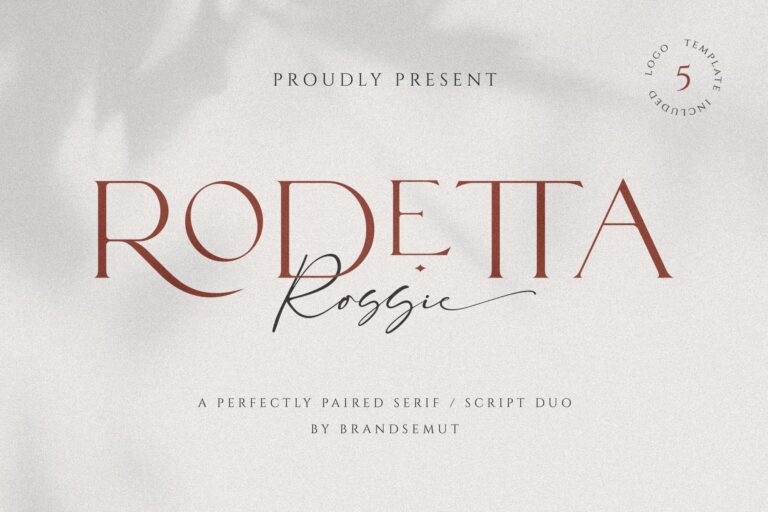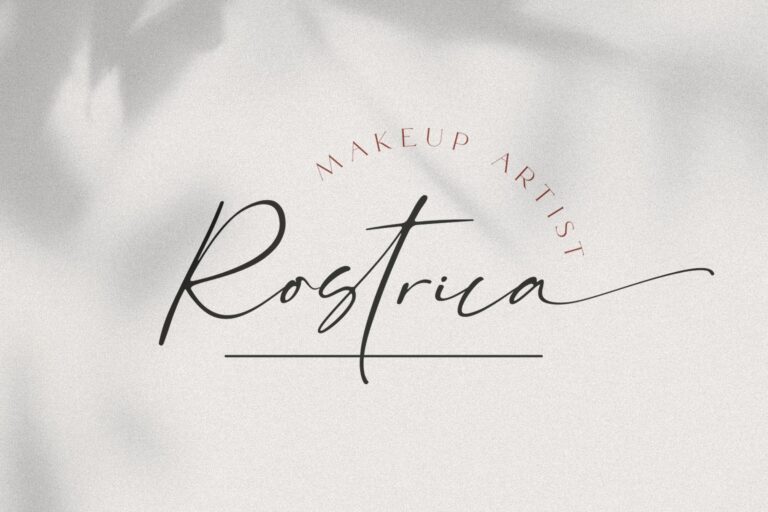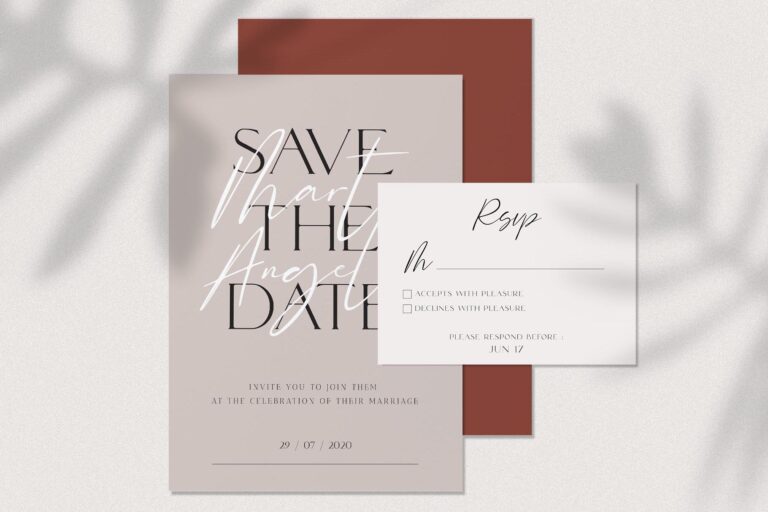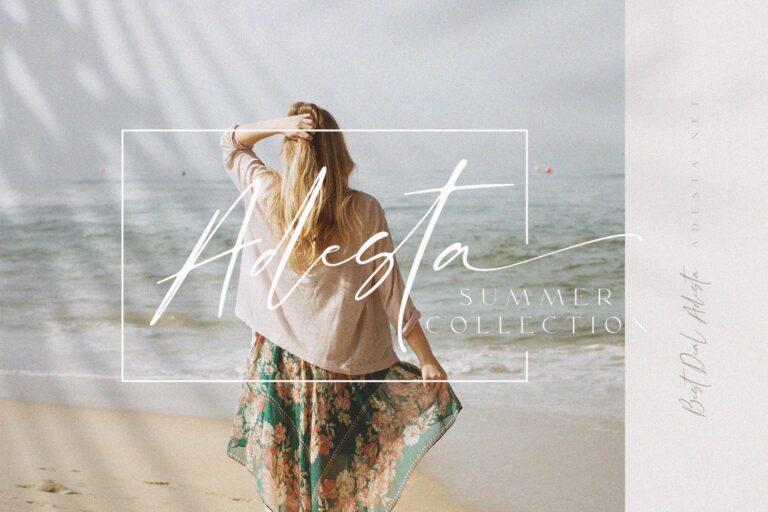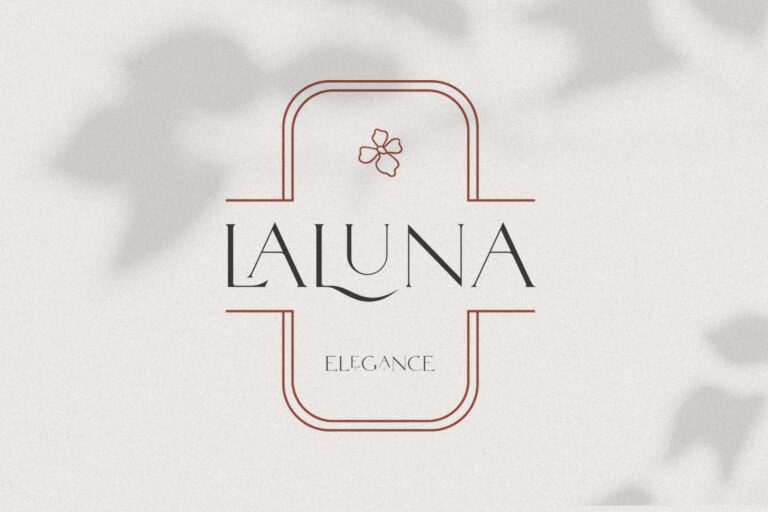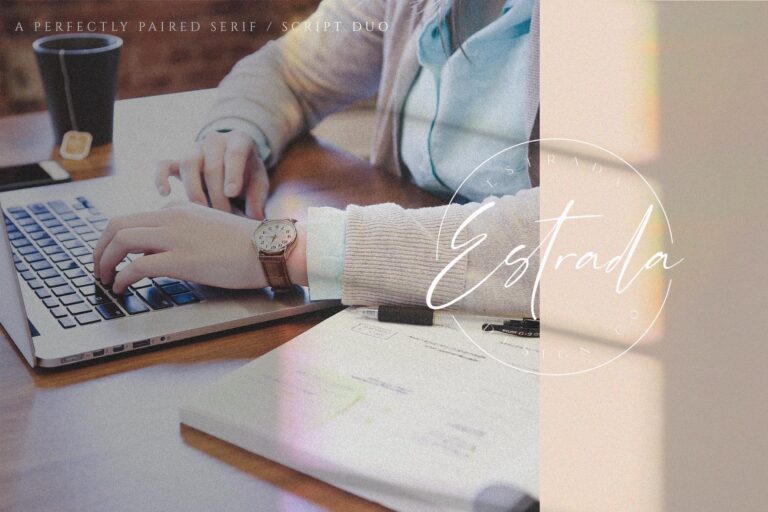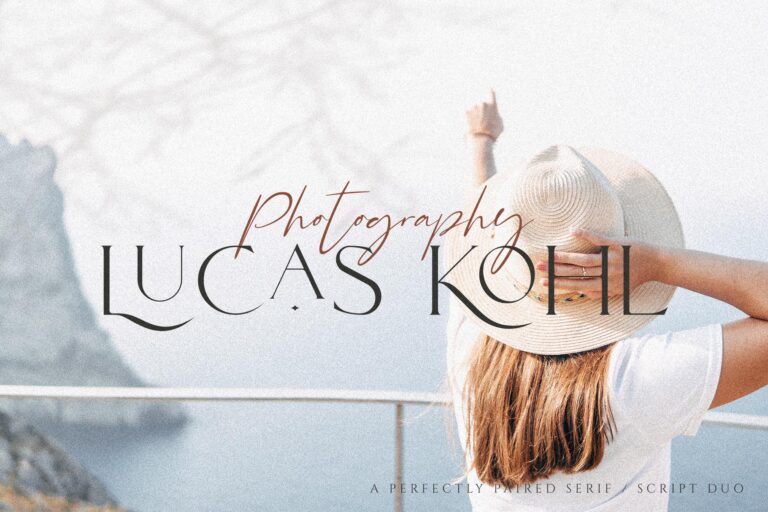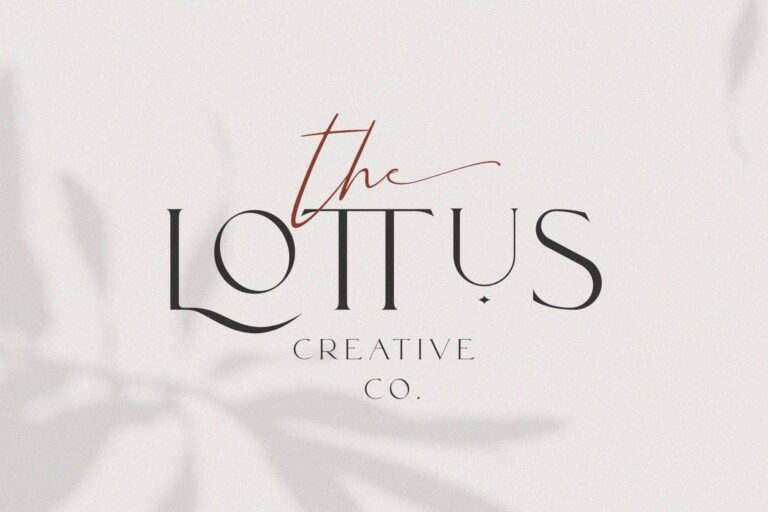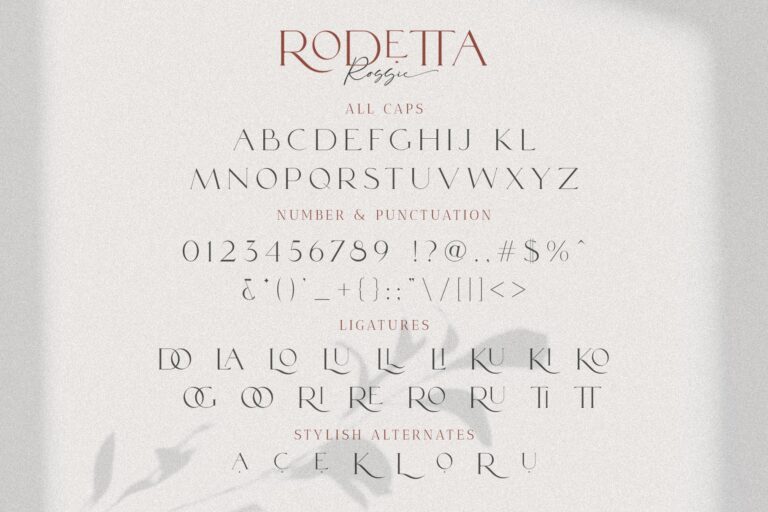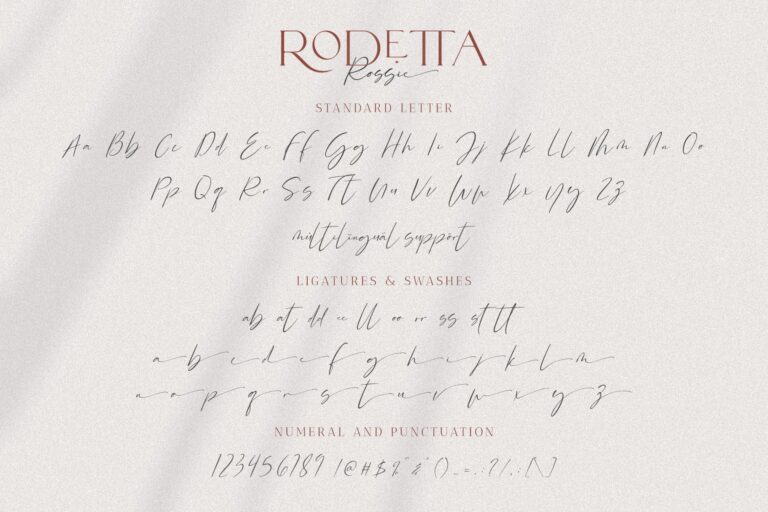
- Rodetta Rossie Font Duo + Logos
Introducing the new Rodetta Rossie Font Duo with 5 BONUS Logo Templates!!! Rodetta Rossie is a classy font duo that includes a signature script and a serif typeface – already matched up and ready to be used together for your next design! For those of you who are needing a touch of elegant, stylish, classy, chic and modernity for your designs, this font was created for you!
Rodetta Rossie was built with OpenType features and includes ligatures, alternates, ending swashes, numbers, punctuation, and it also supports other languages.